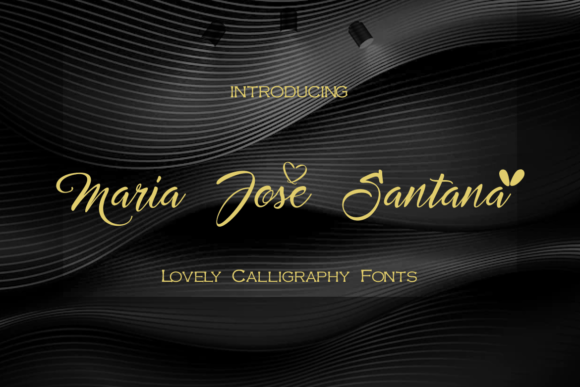
Journey into the realm of elegance and sophistication with Maria Jose Santana Font, a mesmerizing script font crafted by the visionary WinType. This contemporary masterpiece harmonizes classic calligraphy with a modern flair, offering a symphony of strokes that dance across your designs. Its impeccable balance and captivating form create a visual symphony, enticing viewers with its timeless allure.
Unleash your creativity with Maria Jose Santana Font, the epitome of versatility. Its carefully crafted characters, neither too thin nor too thick, exude a charm that adapts effortlessly to a myriad of design styles. From chic invitations to mesmerizing logos, this font seamlessly complements your vision, transforming ordinary text into captivating works of art.
Indulge in the allure of Maria Jose Santana Font, the perfect font for business websites. Its refined strokes and timeless elegance elevate your online presence, leaving a lasting impression on clients and customers alike. Whether you seek to convey professionalism, creativity, or a touch of luxury, this font effortlessly captures the essence of your brand, propelling your business to new heights.
Embrace the beauty of Maria Jose Santana Font, a font that sparks imagination and ignites creativity. Its enchanting aura captivates audiences, enticing them to delve deeper into your designs. Experience the joy of creating spectacular logos, captivating social media posts, and stunning marketing materials that leave an indelible mark on your audience.
Immerse yourself in the world of Maria Jose Santana Font, a font that empowers you to express your individuality. Its versatility grants you the freedom to explore a boundless range of design possibilities, unlocking your inner artist. Whether you're a seasoned designer or just starting your creative journey, this font is your gateway to unforgettable designs.